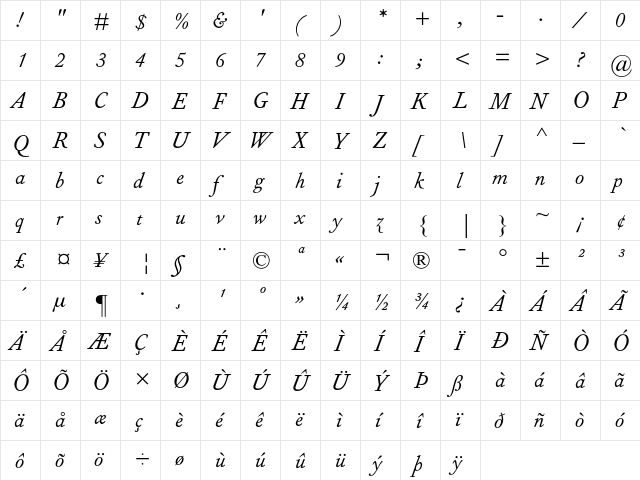
Fournier MT Italic Tall Caps
Design Context for Fournier MT Typeface
Fournier MT offers clean, dependable letterforms without strong stylistic allegiance, making it a practical choice for designers who need flexibility. The dynamic lean of this cut emphasises speed and emphasis in any layout.
Pro Tip: Try Fournier MT for annotation and caption copy alongside an upright companion — the contrast in angle creates a dynamic but ordered typographic system.